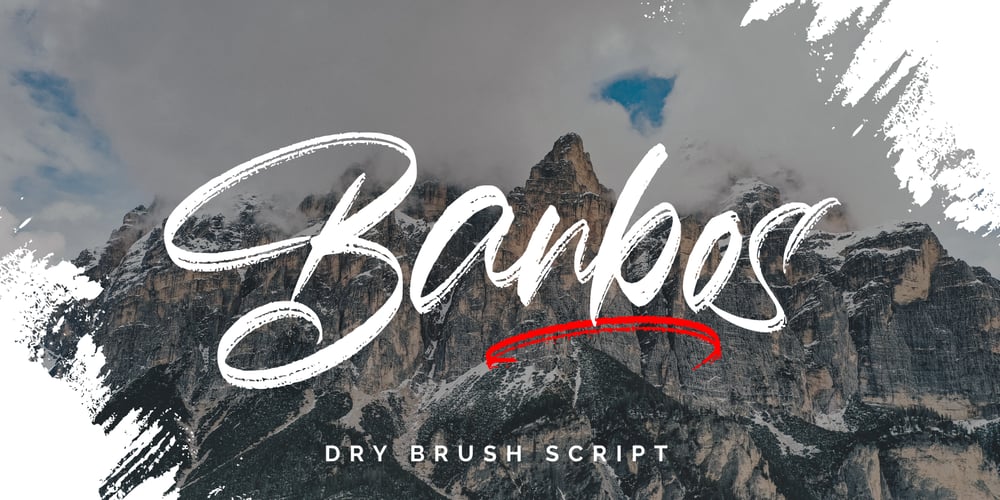
Banbos Font Family was designed by Vava Aryanto and published by FallenGraphic. Banbos contains 1 styles and family package options. Banbos is an amazing handwritten brush font, made with naturally handwriting. The font will make your design more beautiful and powerful. This font is suitable for any design like branding, quotes and more. Banbos includes: Accents (Multilingual Characters) Numerals and Punctuations (OpenType Standard) Many of alternates is PUA encoded